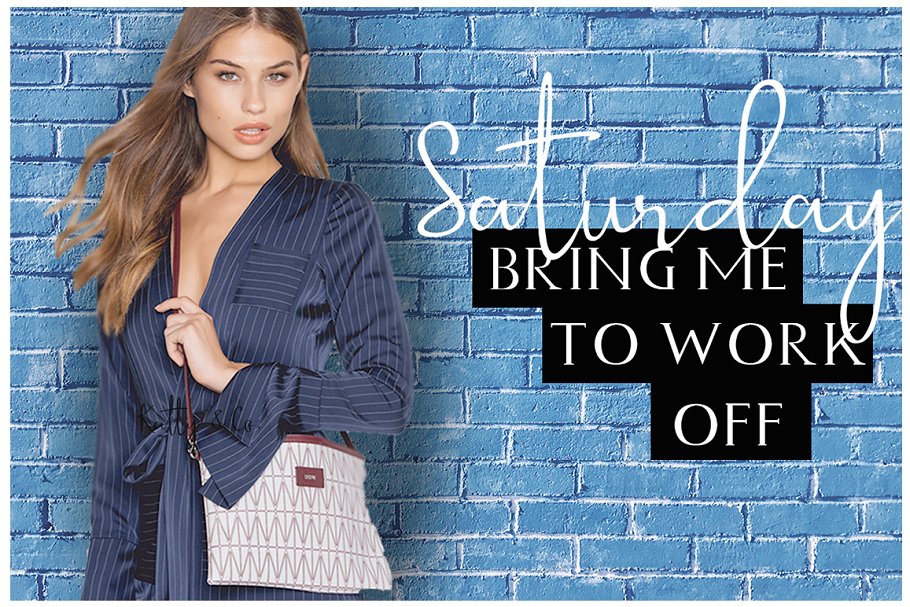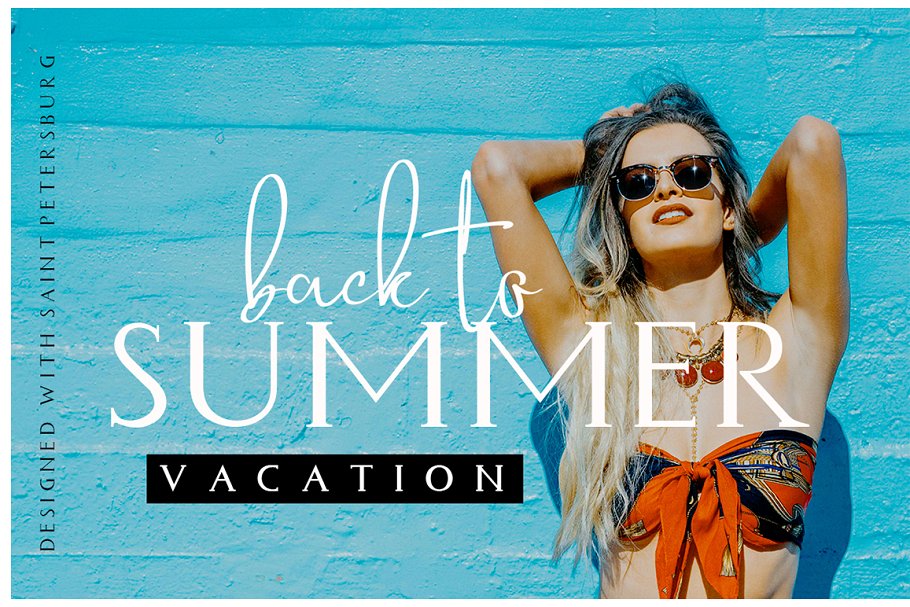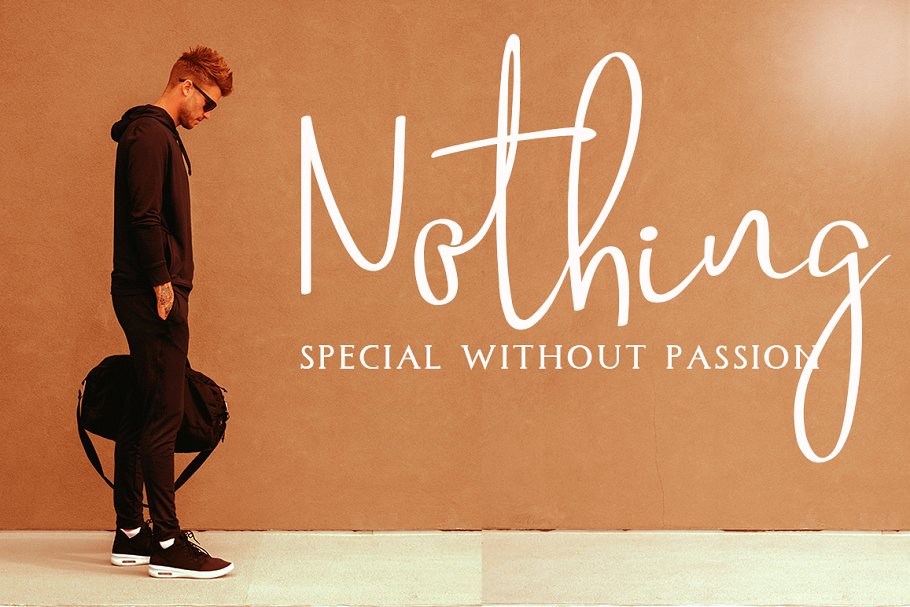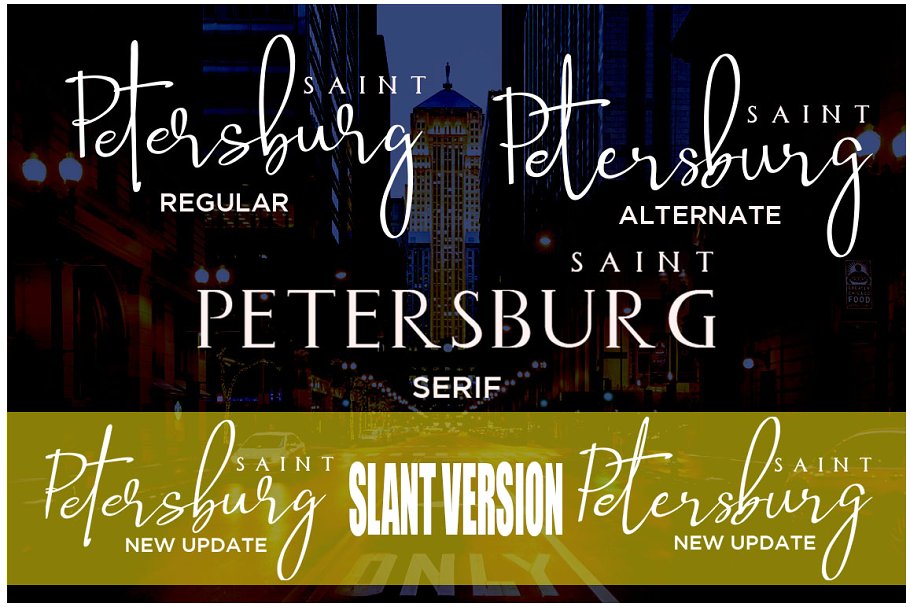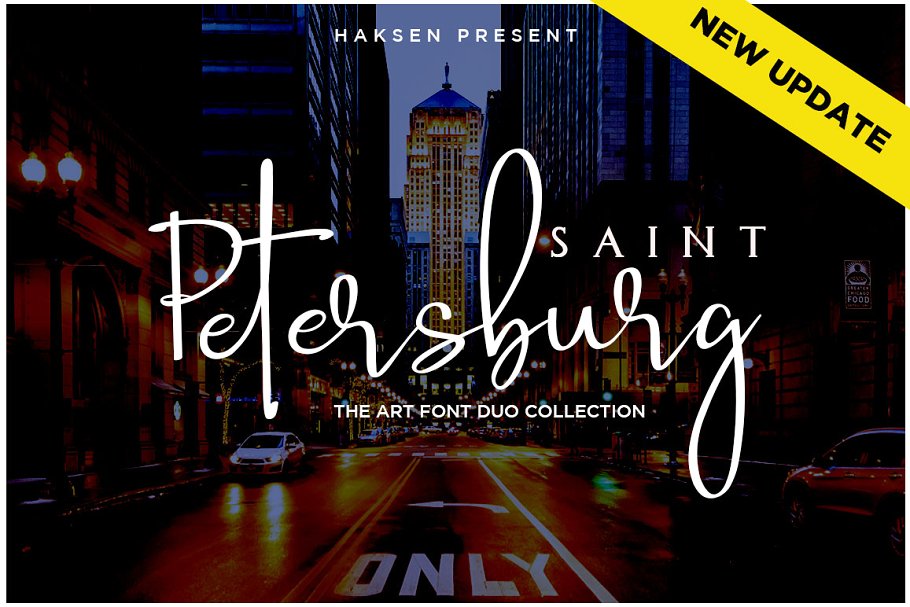
Saint Petersburg Font Duo
Hi Everyone ! The art font duo collection. Introducing Saint Petersburg! It is was designed and shares by Haksen. A fashionable new handwriting font script with some sexy stylish extras:) also good combine the serif. Saint Petersburg font were created to look as close to a natural handwritten script as possible by including over 20 ligatures and serif for the couple of these. With built in Opentype features, this script comes to life as if you are writing it yourself. It’s highly recommended to use it in opentype capable software – there are plenty out there nowadays as technology catches up with design.